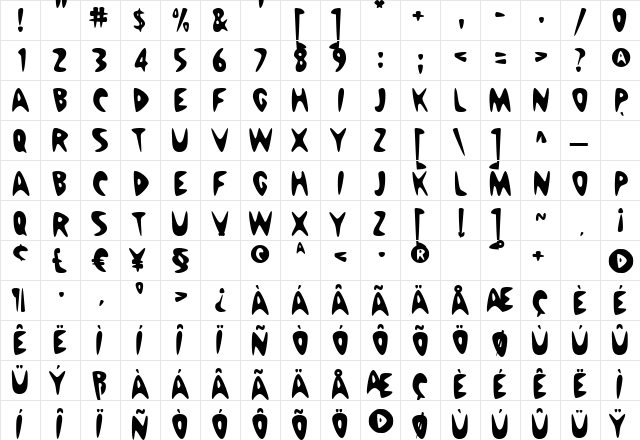
FiftyFive Regular Font Preview
FiftyFive Regular
Design Context for FiftyFive Typeface
FiftyFive is a composed and adaptable typeface that performs quietly and consistently across a wide range of design contexts.
Pro Tip: Pair FiftyFive with a font of contrasting weight or personality to build a more expressive typographic hierarchy.